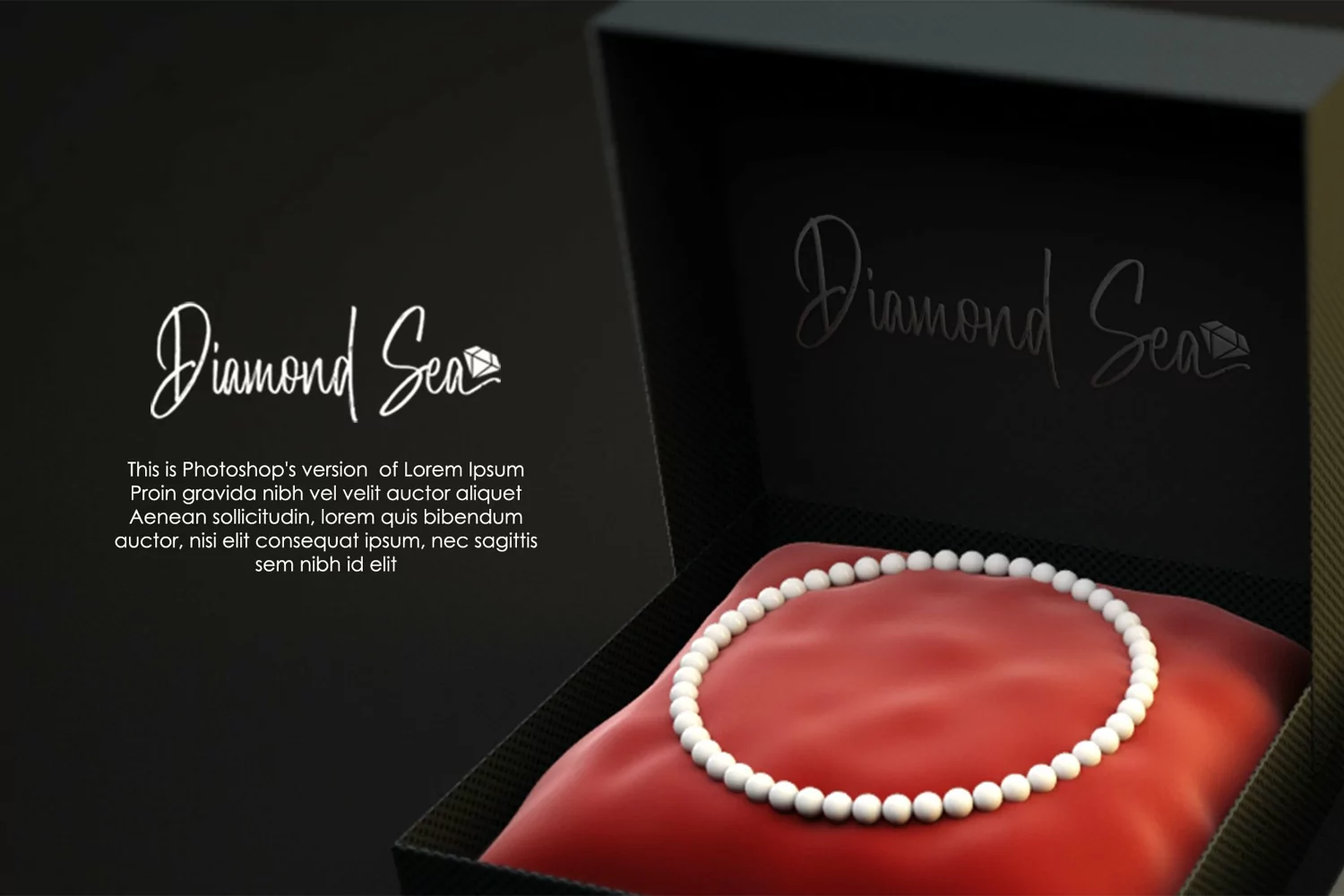
Morristone is a typical font with such a signature look with natural flow and has the texture inside. This font can make your design look authentic and handcrafted. Morristone suitable for this use in you for the signature, logotype, invitation cards, quotes art, website header design, packaging, branding and more. This font is always exciting to design you create.
Morristone comes with uppercase, lowercase, number, and punctuation.Features :
- Contextual Alternate
- Stylistic Alternate